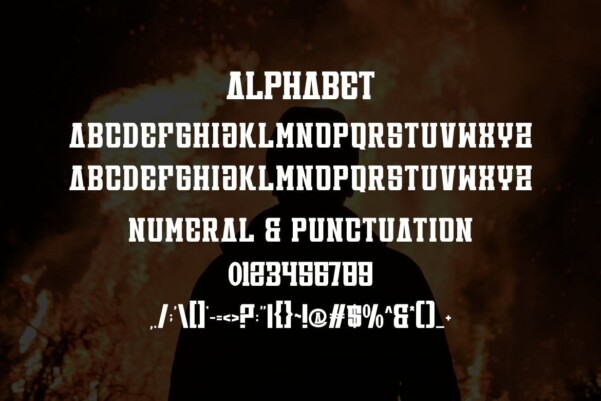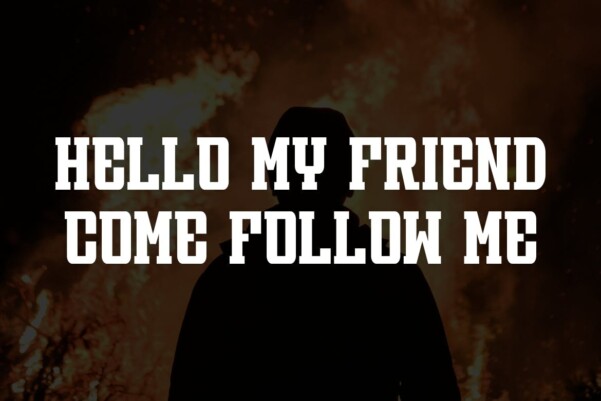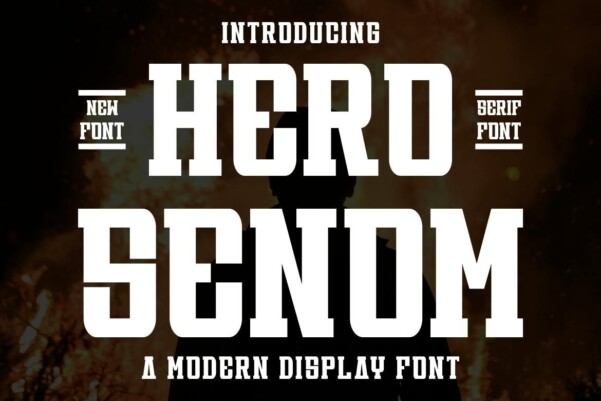
Hero Senom Font
Hero Senom Font is a modern and simple font ideal for displaying headlines, Logos, branding, magazines, product packaging and invitations. Hero Senom features clean lines and gentle curves that give any project an extra touch of class